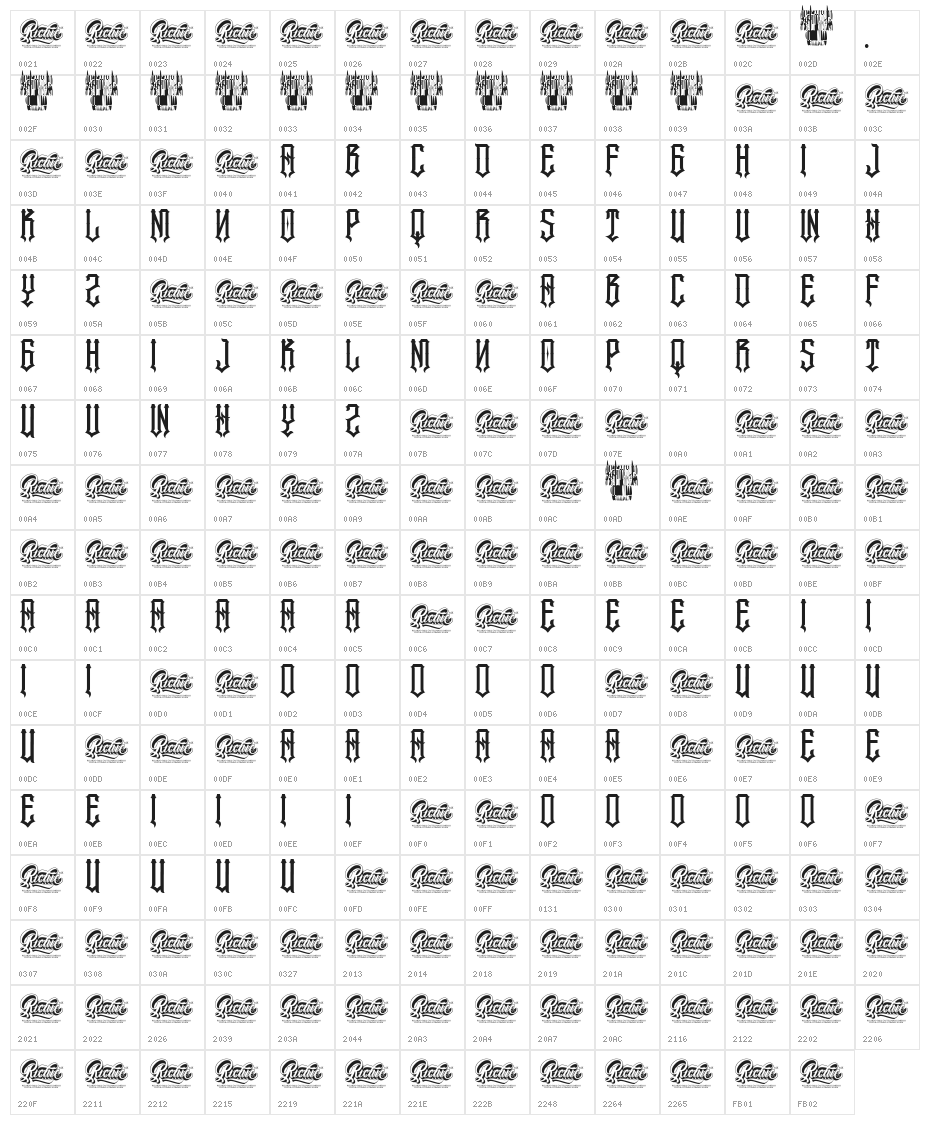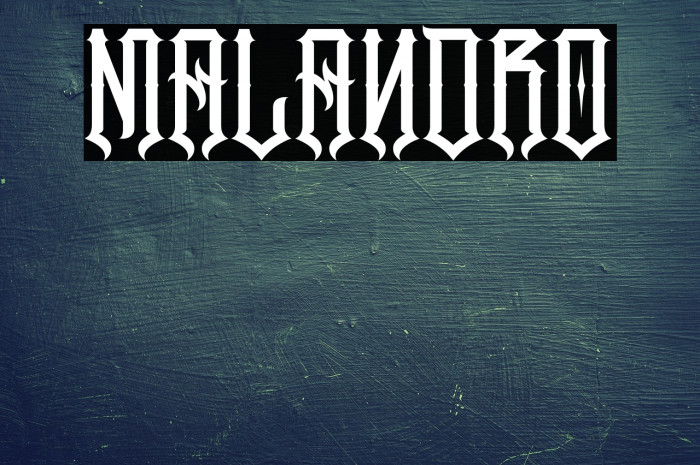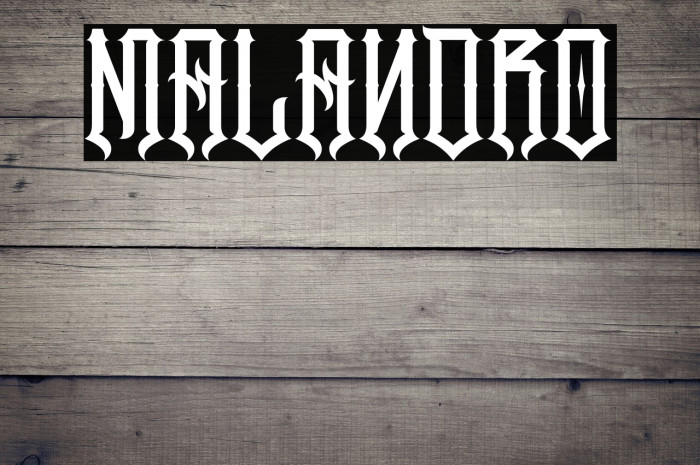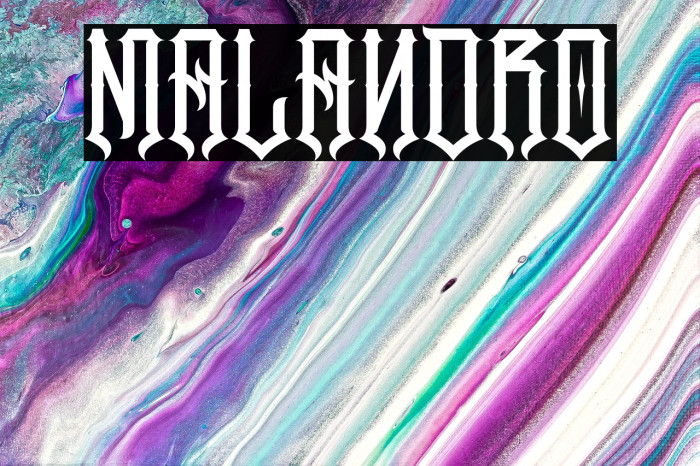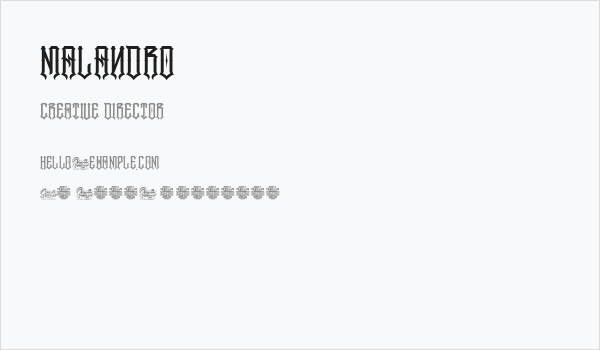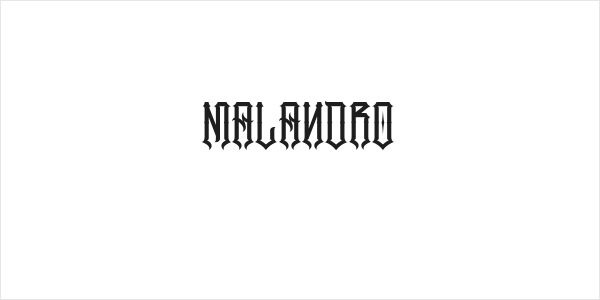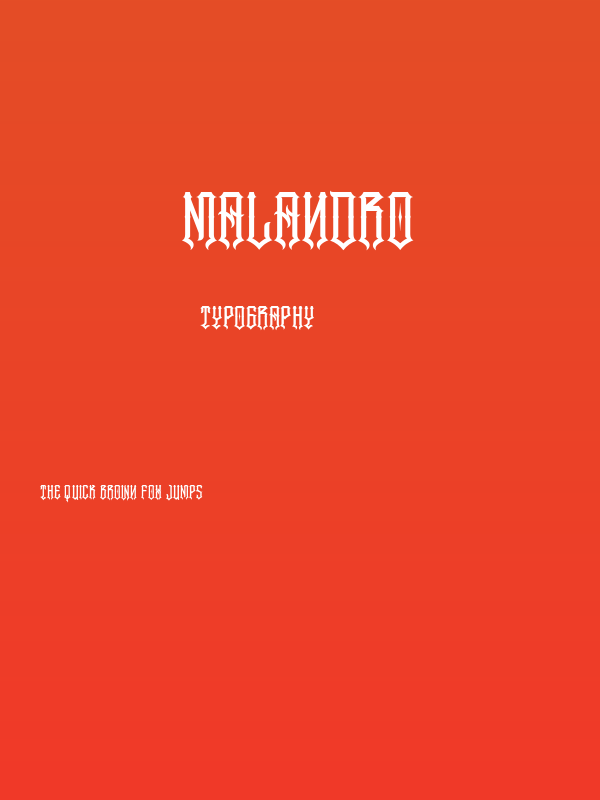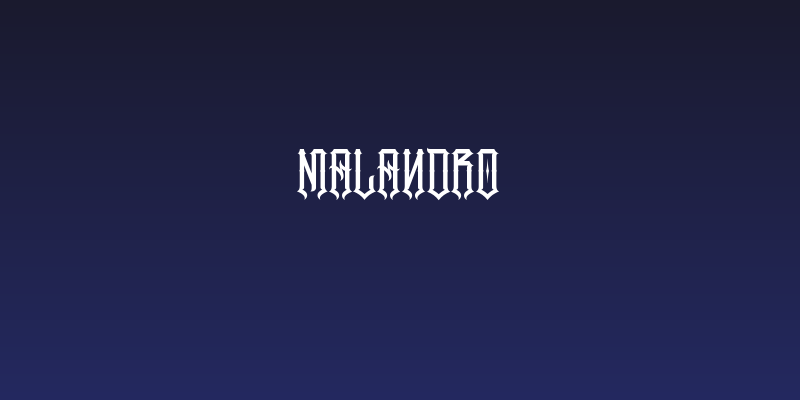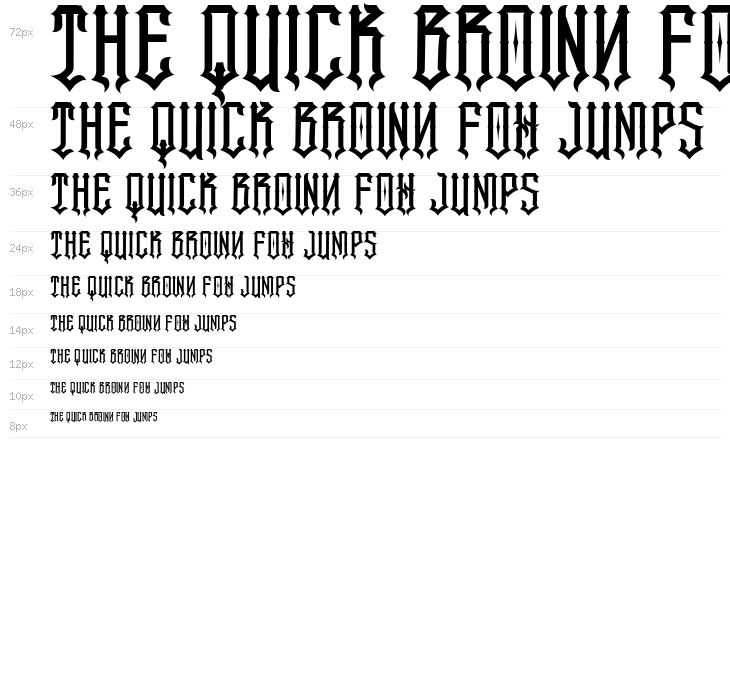
Malandro Font
Malandro Description
This font features a bold and striking blackletter style, characterized by its sharp, angular lines and intricate detailing. The uppercase letters exhibit a traditional Gothic influence, with elongated verticals and pointed serifs that give it a dramatic and imposing appearance. The lowercase letters maintain the same aesthetic, ensuring consistency throughout the typeface. The numerals and special characters are designed to match the overall style, making them suitable for decorative purposes. This font is ideal for projects that require a historical or medieval touch, such as event posters, book covers, or branding for themed events.
| Proposed Projects | Ideal for event posters, book covers, or themed branding requiring a historical touch. |